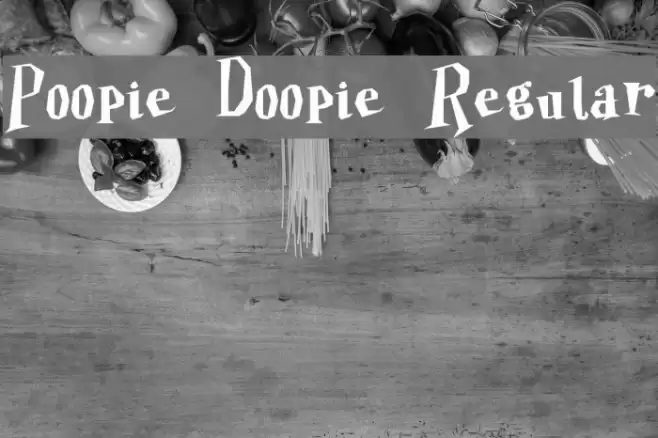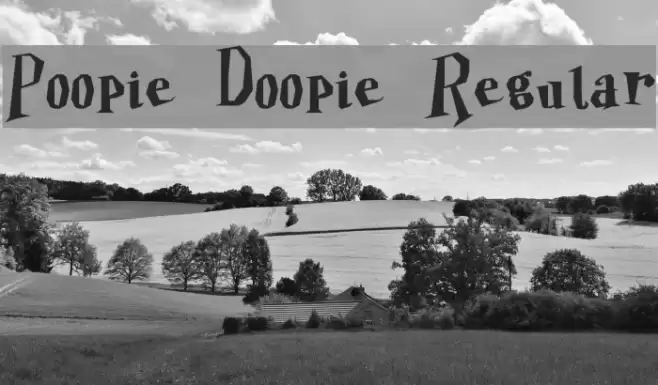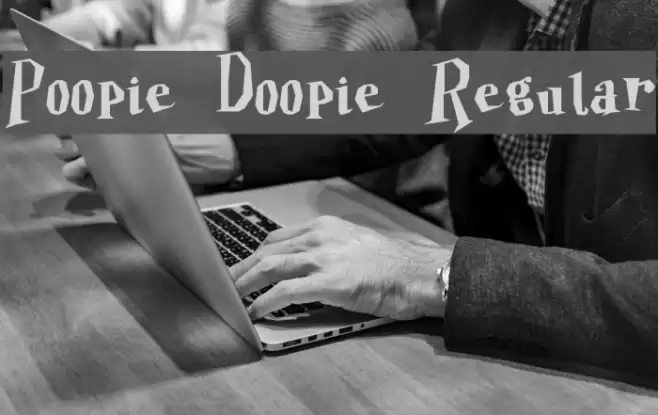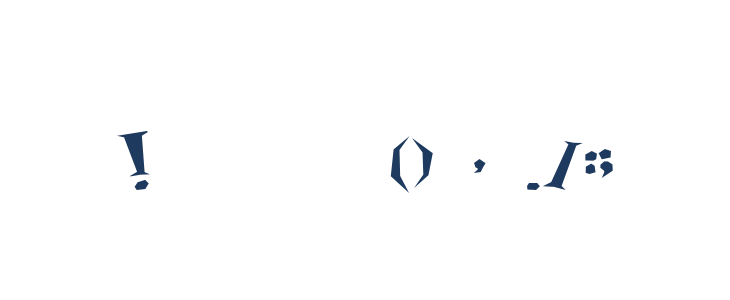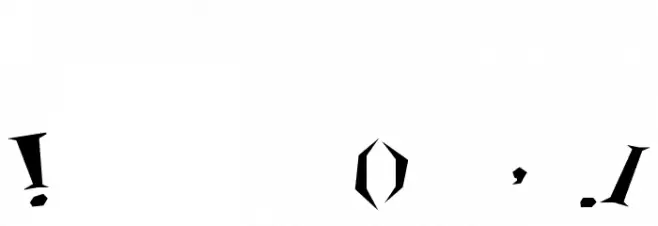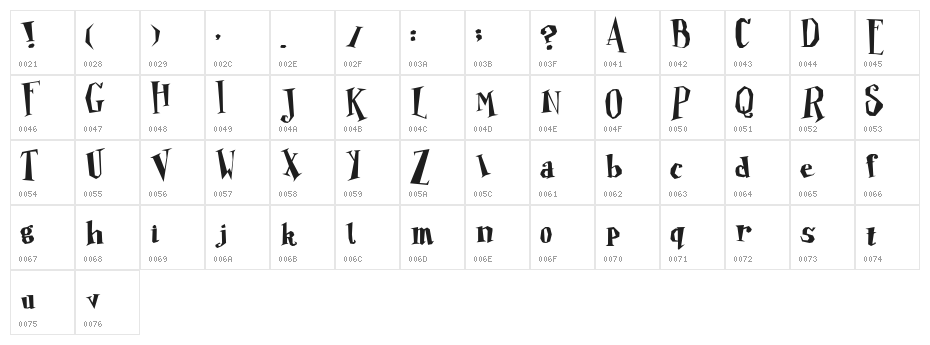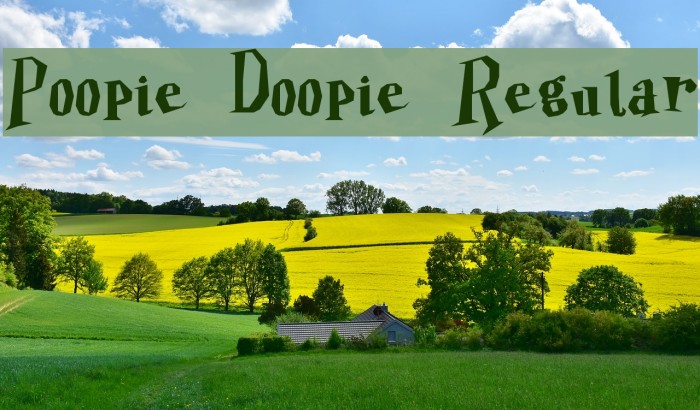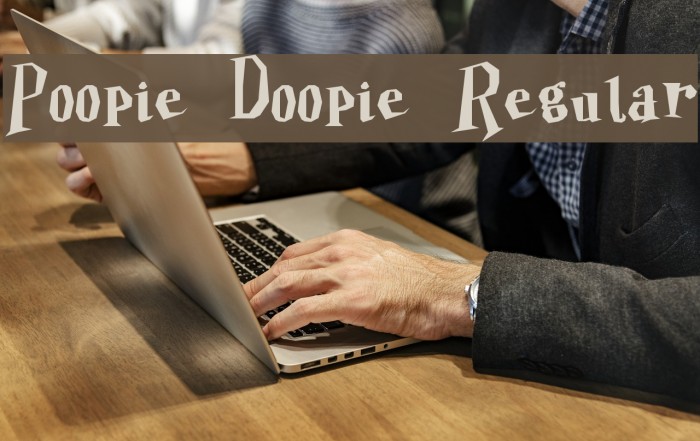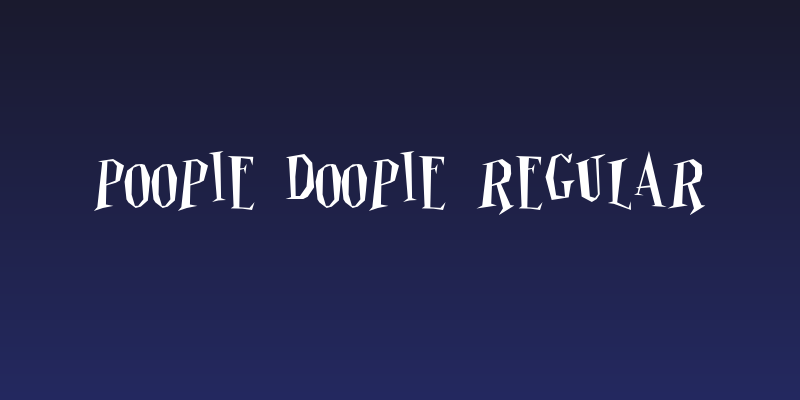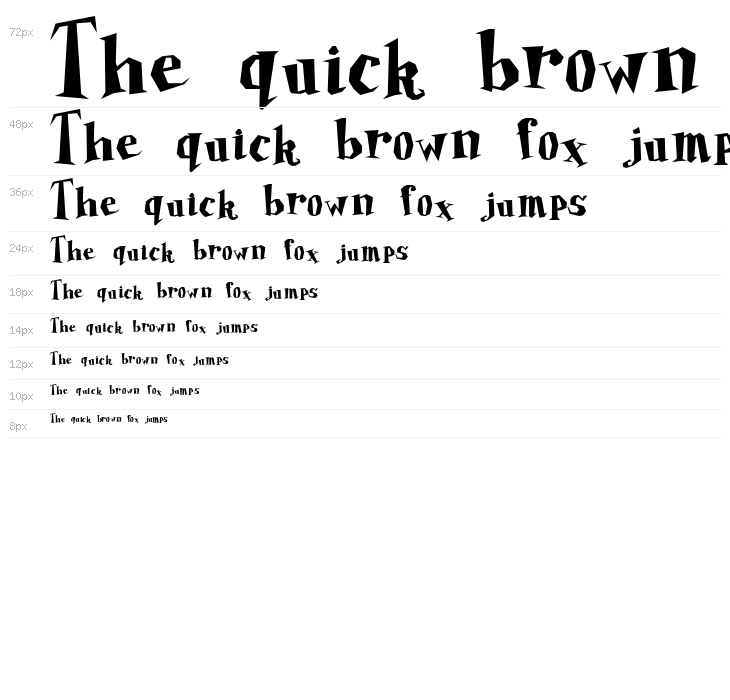
Poopie Doopie Regular Font
Poopie Doopie Regular Description
This font features a playful and quirky design with irregular, jagged edges that give it a whimsical and dynamic appearance. The characters are bold and have a slightly distorted form, creating a sense of movement and energy. The uppercase and lowercase letters maintain a consistent style, with exaggerated angles and curves that add to its unique personality. The numbers and special characters follow the same design principles, ensuring a cohesive look across all elements. This font is ideal for projects that require a fun and unconventional aesthetic.
A playful, jagged font with bold, irregular shapes and dynamic energy from Comic fonts.
- Proposed Projects: Great for children's book covers, playful posters, creative branding, and event invitations.